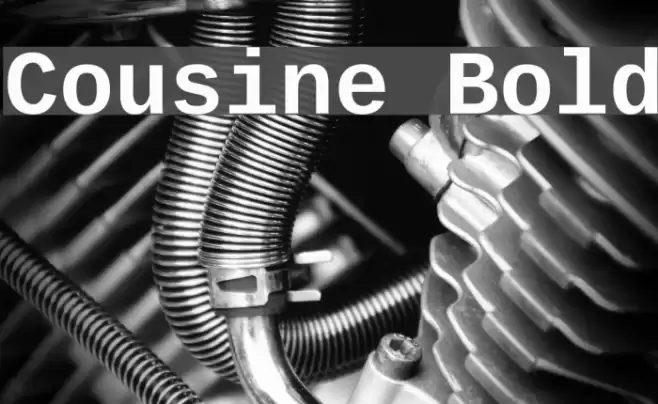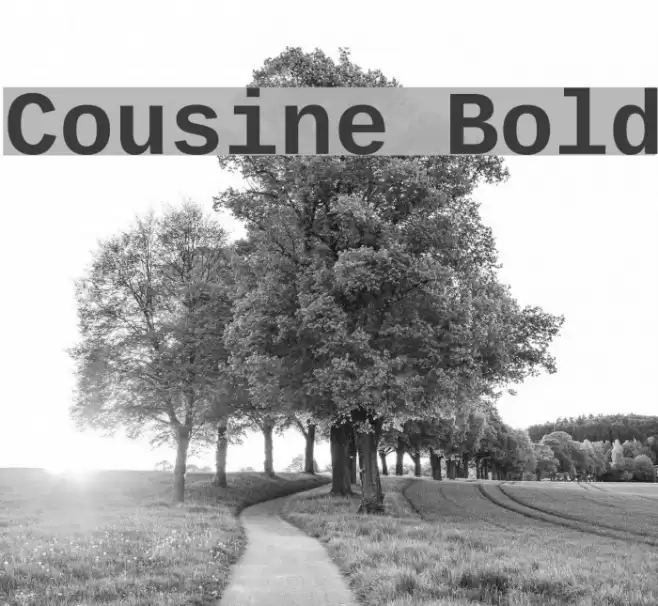
Cousine Bold Font
Cousine Bold Description
This font is a monospaced typeface characterized by its uniform spacing and clean, modern appearance. Each character occupies the same amount of horizontal space, making it ideal for coding and tabular data. The bold weight enhances readability, providing a strong presence on the page. The design is straightforward with minimal contrast between thick and thin strokes, contributing to its legibility. The characters are well-proportioned, with a consistent height and width that maintains clarity across different sizes. This font's simplicity and functionality make it a versatile choice for various applications.
A bold, monospaced font with a clean and modern design, ideal for coding from Uncategorized fonts.
- Proposed Projects: Suitable for coding environments, technical documentation, data tables, and any project requiring clear, uniform text presentation.
- Use Case: Coding, Technical documentation, Data tables